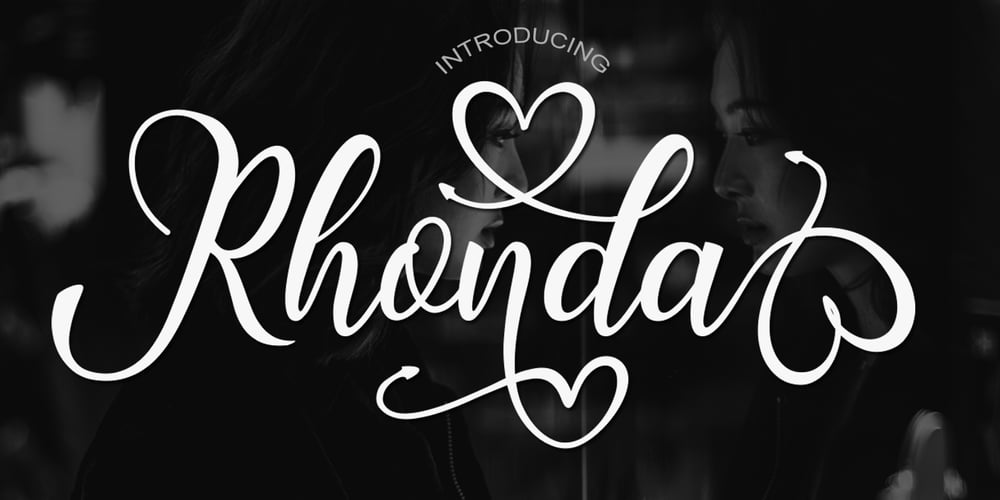
Rhonda Font Family was designed by Marwah and published by BBA Key. Rhonda contains 1 styles and family package options. Rhonda Script is a new fresh and modern handmade calligraphy with decorative characters and dancing lineage! So wonderful on invitations, greeting cards, branding material, business cards, quotes, posters, and more.Rhonda Script comes with 489 glyphs. Alternate characters are divided into several Open Type features such as Swash, Stylistic Sets, Stylistic Alternates, Contextual Alternates. OpenType features are accessible by using OpenType savvy programs such as Adobe Illustrator, Adobe InDesign, Adobe Photoshop Corel Draw X versions, and Microsoft Word. And this font has code PUA unicode so that all alternative characters can be easily accessed by craftsmen or designers.Rhonda Script contains uppercase and lowercase, International lingual support, signature and symbols, Punctuation and PUA numbers, Unicode Style, Alternative Styles, Style Range 1-11, Contextual Character Variations. If you do not have programs that support OpenType features like Adobe Illustrator and CorelDraw X Versions, you can access all alternative sets using Font Book (Mac) or Character Map (Windows).